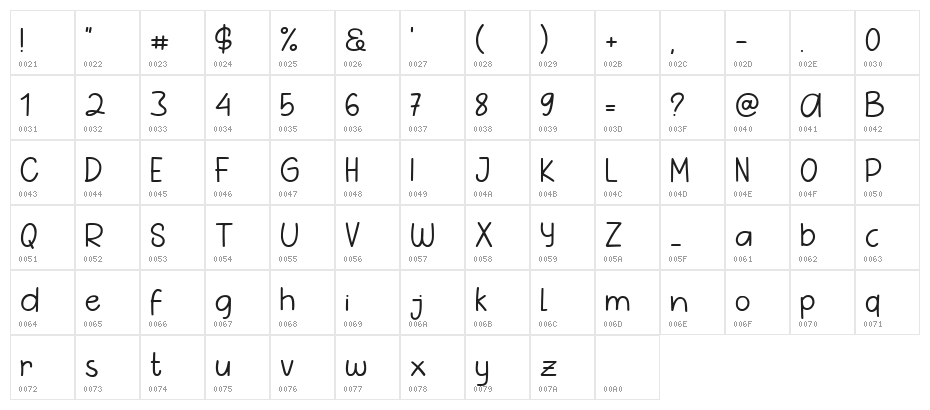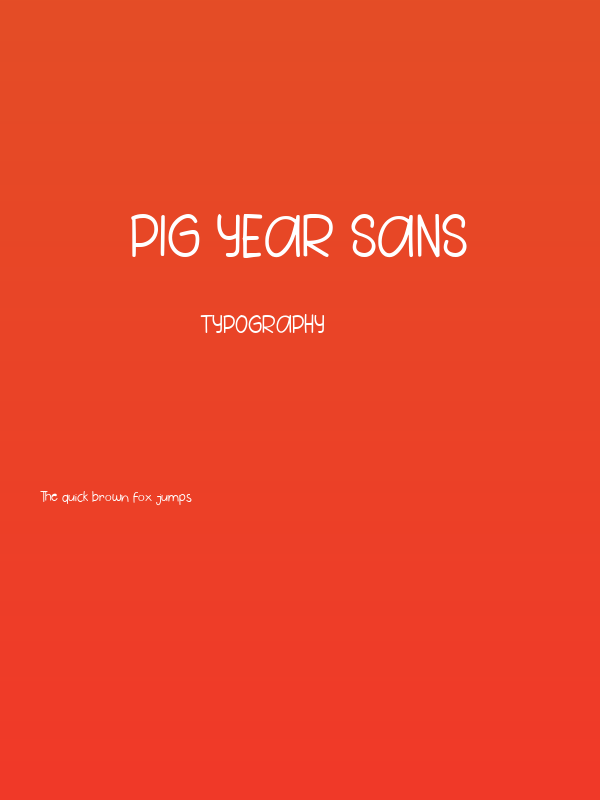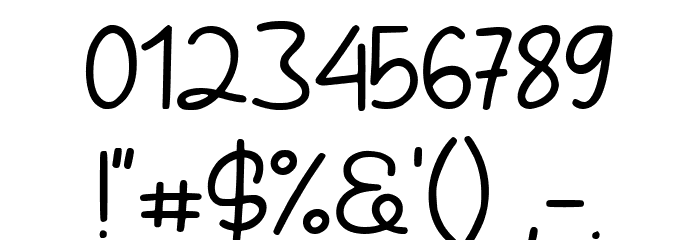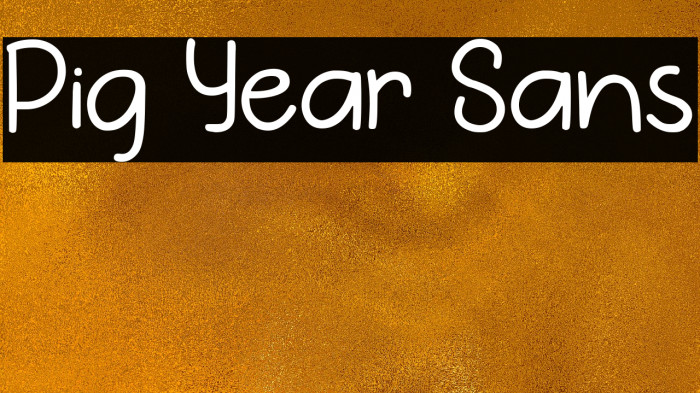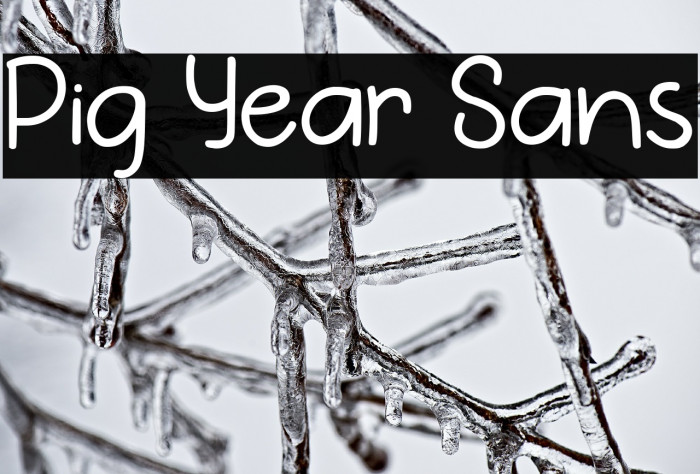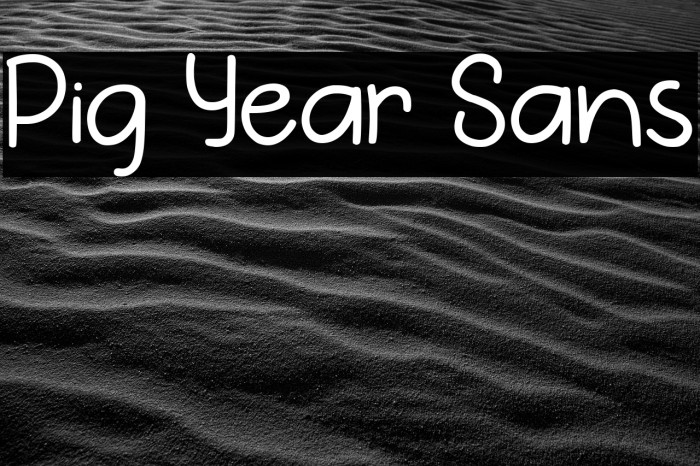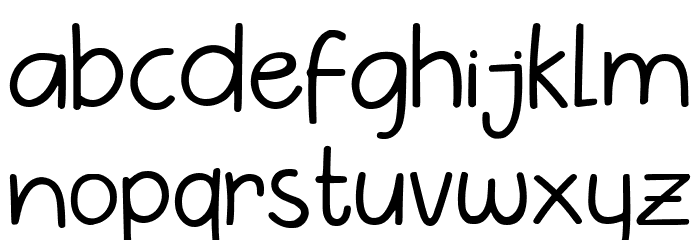
Pig Year Sans Font
This playful and whimsical font features a handwritten style with rounded edges and a casual appearance. The characters are slightly irregular, giving it a friendly and approachable feel. The uppercase letters are bold and prominent, while the lowercase letters maintain a consistent flow with a slightly smaller size. Numbers and special characters are crafted with the same playful touch, ensuring a cohesive look across all elements. The font's informal style makes it ideal for projects that require a personal or creative touch.
| Proposed Projects | Ideal for children's books, greeting cards, playful branding, and social media graphics. |